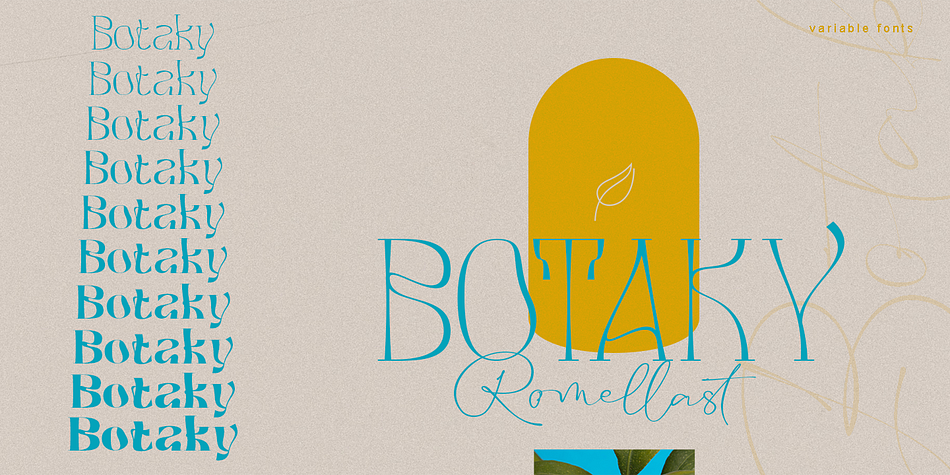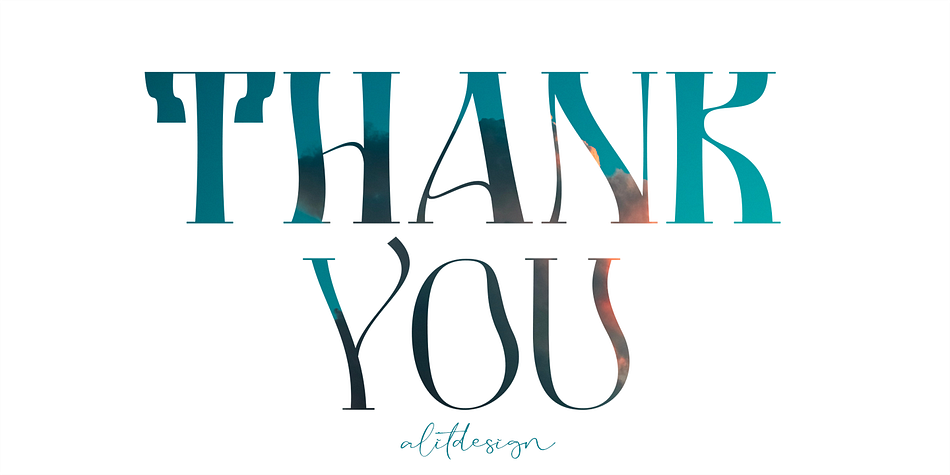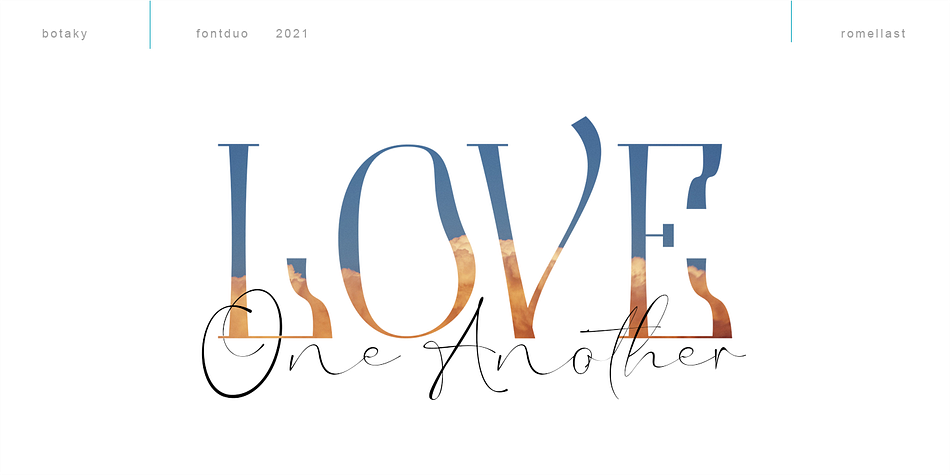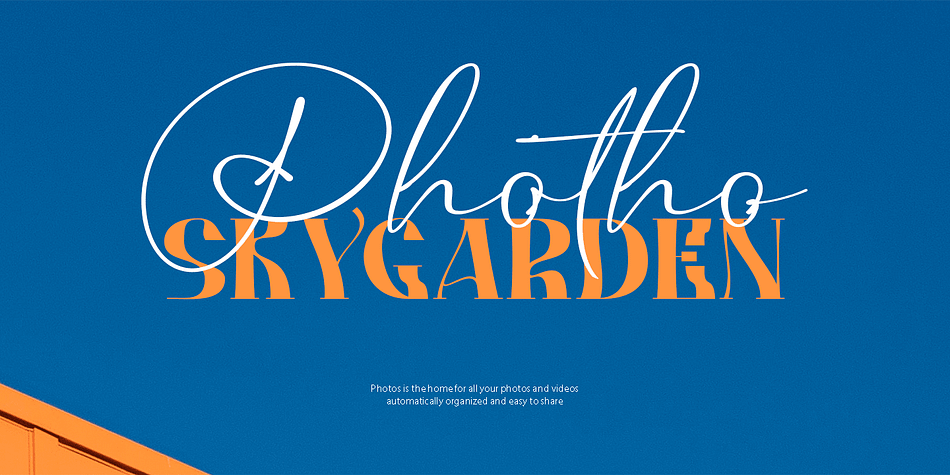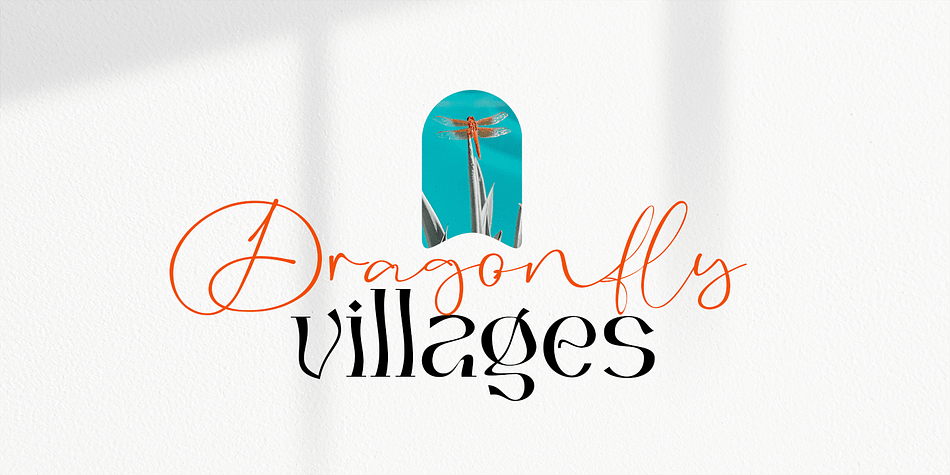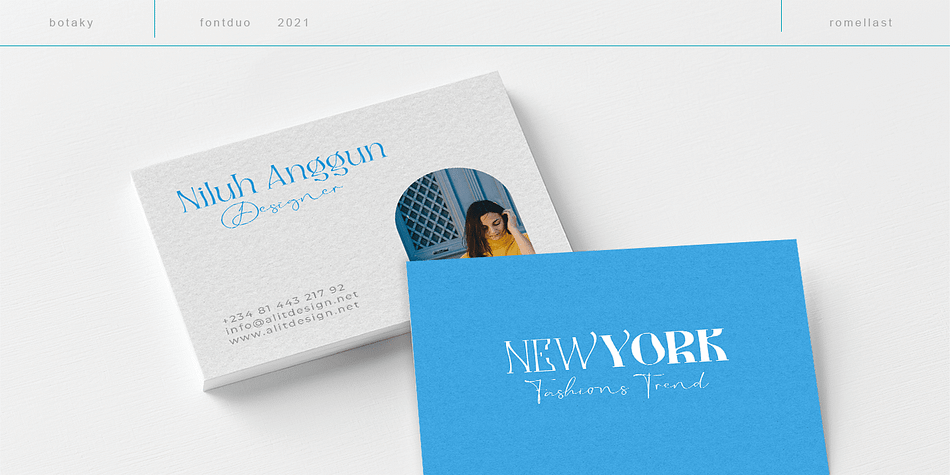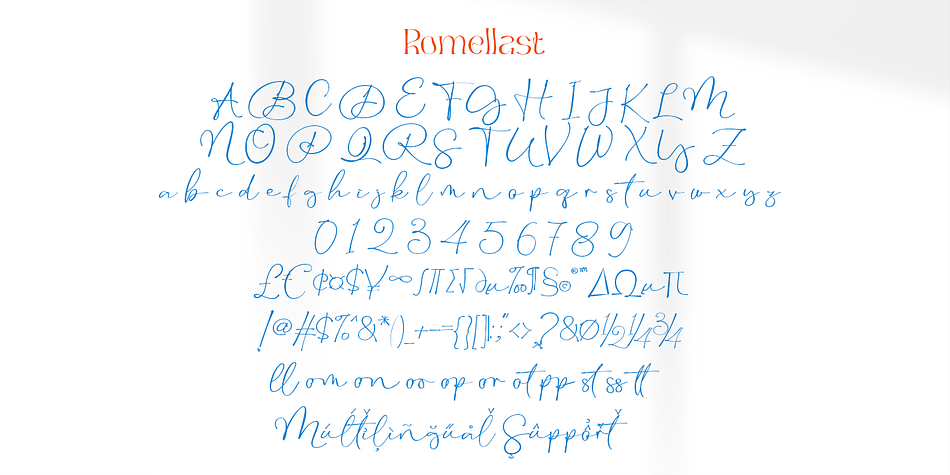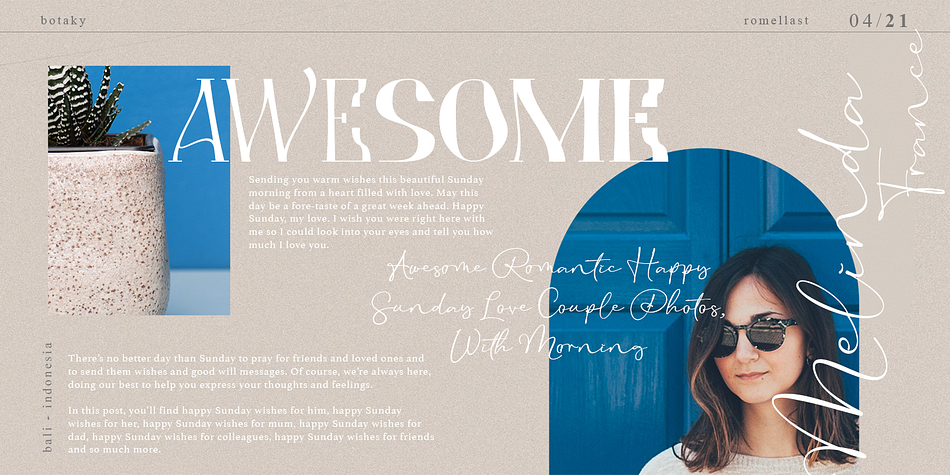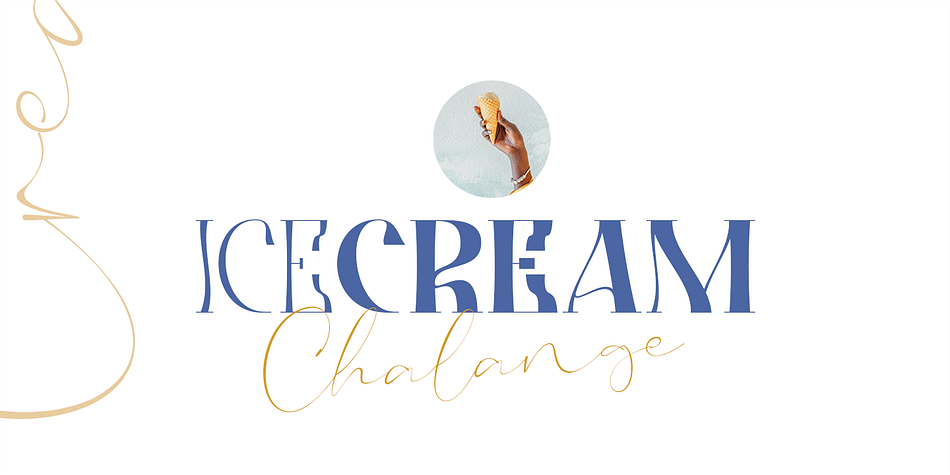
Designed by Alit Suarnegara, BOTAKY Romellast is a multiple classification font family. This typeface has thirteen styles and was published by Alit Design.
Introducing BOTAKY Romellast fontduo
Unique and fantastic duo fonts combined or they stand alone.
BOTAKY font family which consists of 10 fonts, from Thin to Black style. The funky, swaying font creates a unique design and is sure to take the eye off the design target audience. Apart from being unique, the BOTAKY font also has a luxury simple character that makes the design charming.
The Romellast font is a signature script that has cool strokes. The line shape from Romellast is inspired by the brushes on Instagram when creating stories. This brush is very cool and is often used by netizens who are not designers or designers. In addition, Romellast has an altenate ligature that looks natural and not stiff. There are 2 styles of the Romellast font, namely the Thin style which is thinner and the regular style which is thicker, so you have several options to suit your taste.
Combining the two BOTAKY and Romellast fonts will create a design that is charming, unique, elegant and cool. you can see from the design preview.
These two fonts are perfect for designs with the concept of elegant, luxury, romance, fashion and so on.